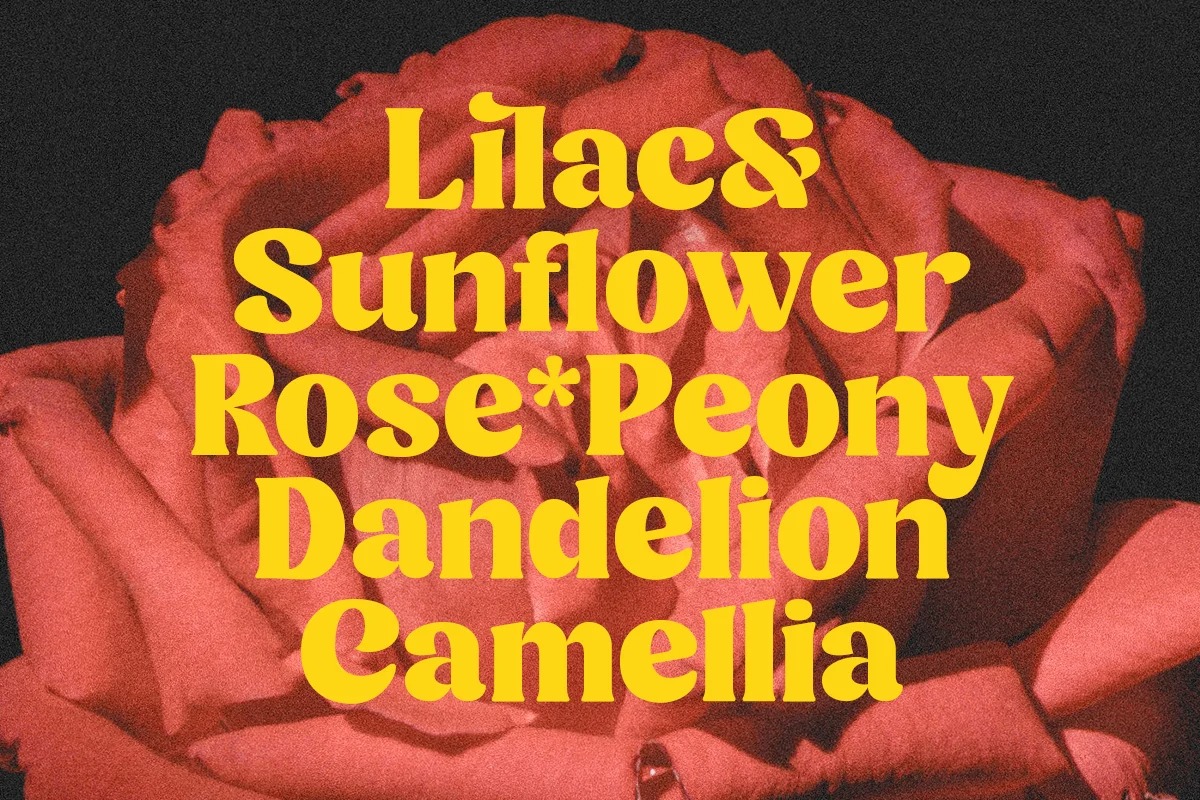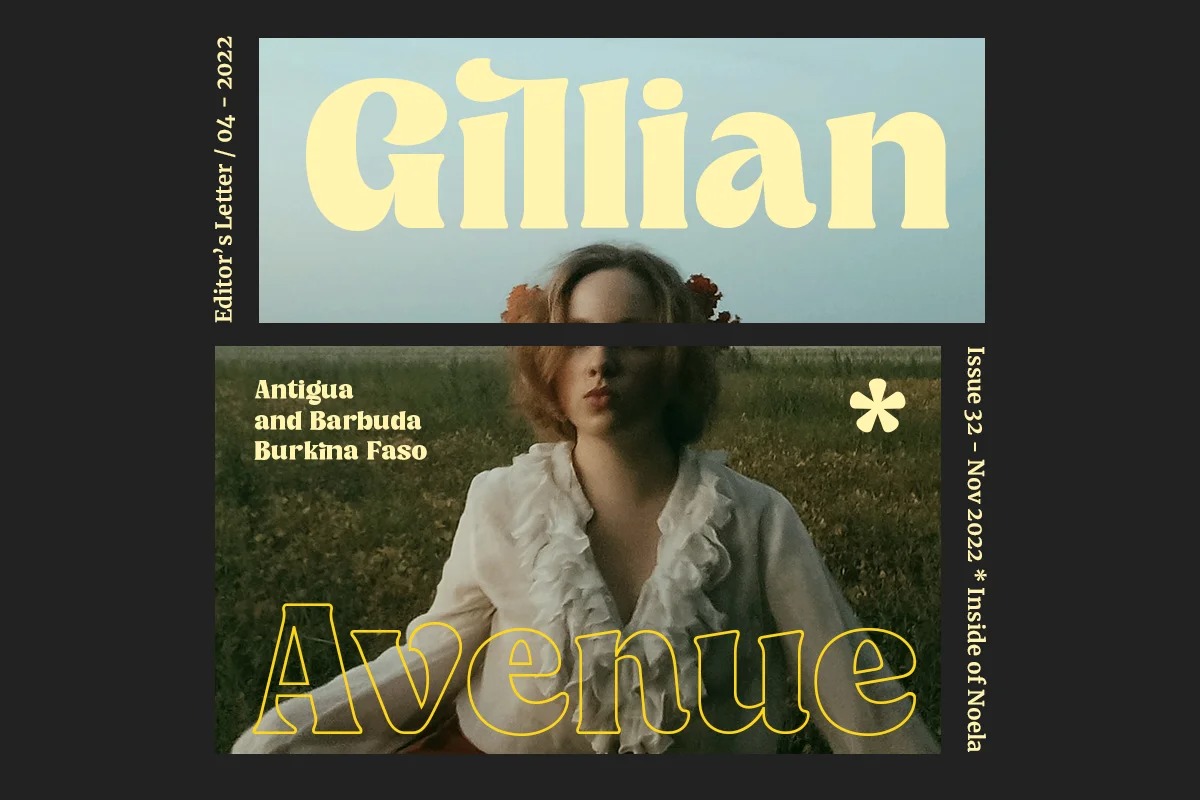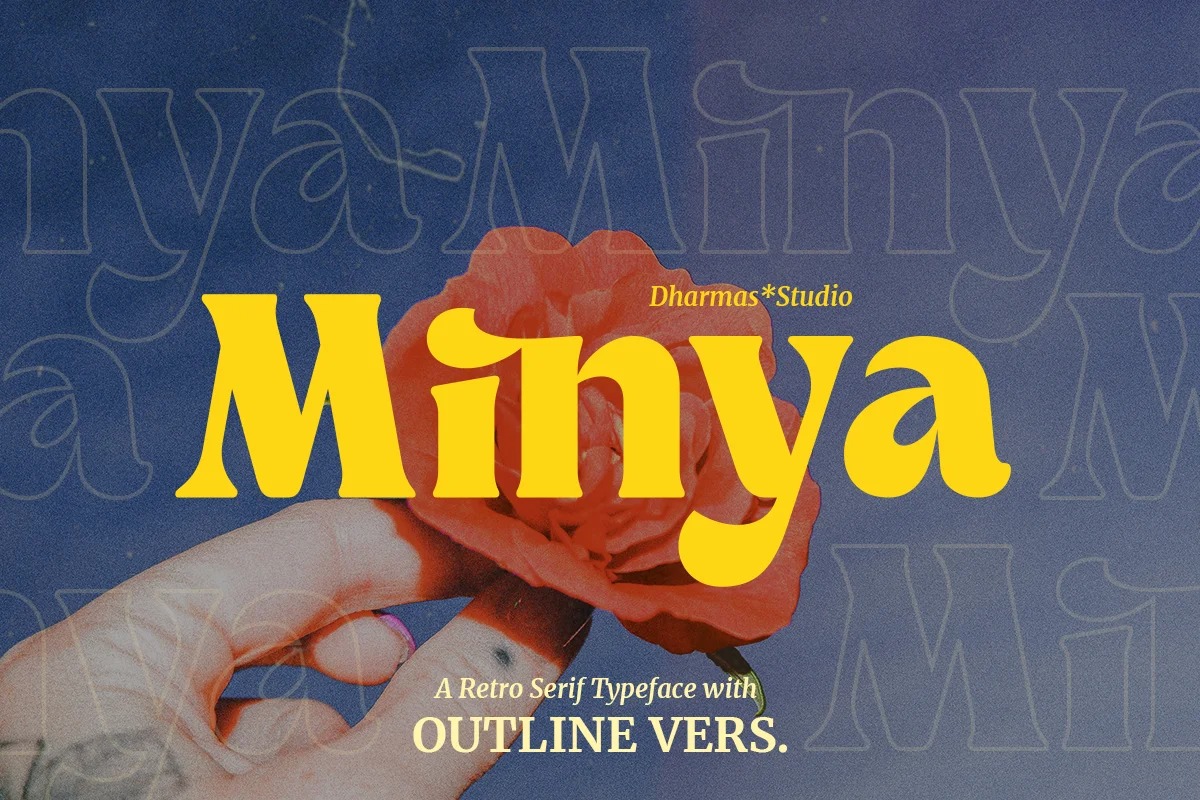
Minya Font
Minya Serif Font is a modern serif typeface created by Dharmas Studio with an elegant curve in each letter and also alternates. Has an Outline version perfect for creating nostalgic yet still elegant designs such as logos, packaging, editorial, and any projects. It makes a high level of legibility.
Minya – This font has more than 34 unique alternates and ligatures that give your logo, business card, and another project to a unique vintage look. It has an Italic version too so make your project more versatile!